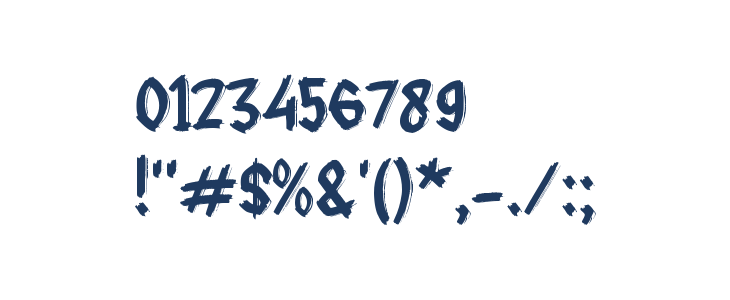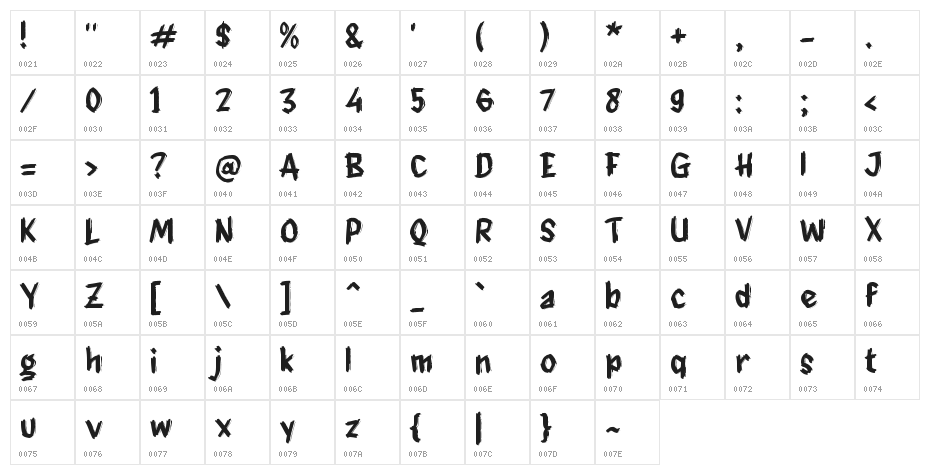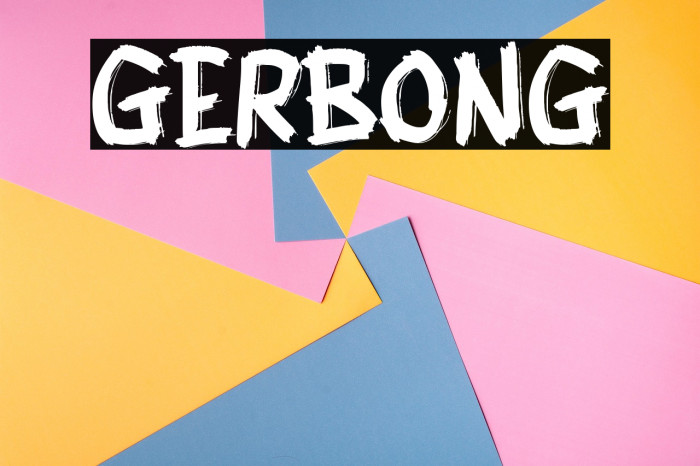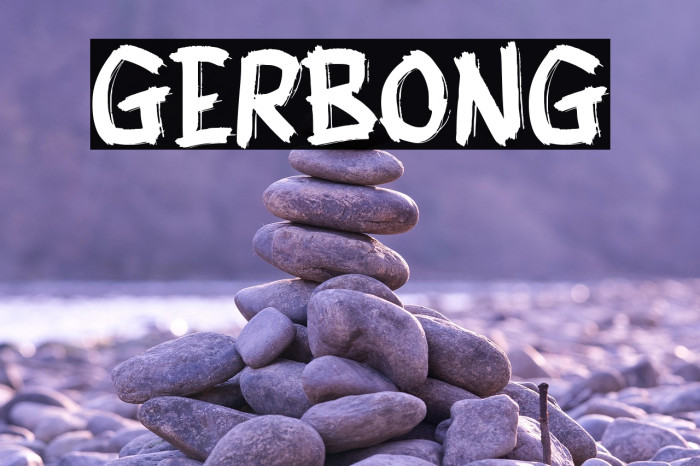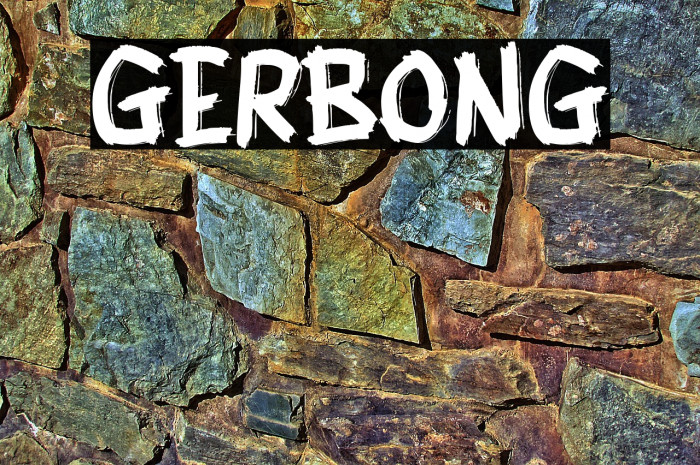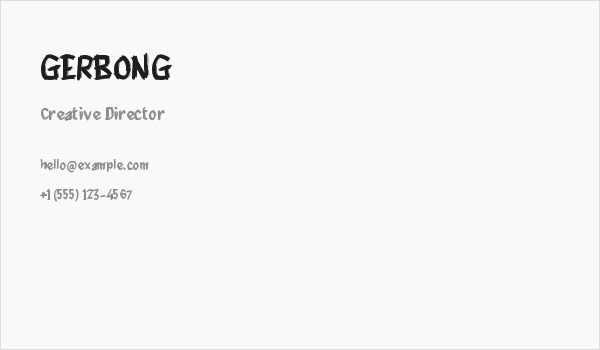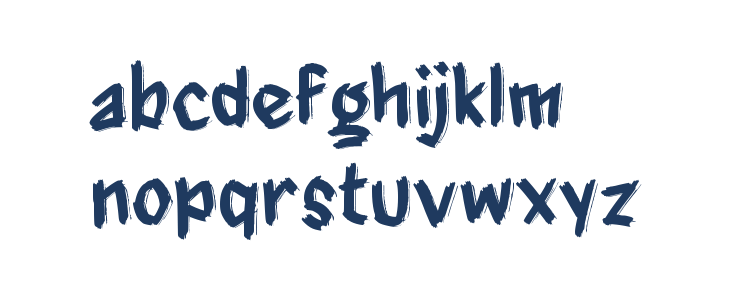
GERBONG Font
GERBONG Description
This font features a bold, brush-like style that gives it a dynamic and energetic appearance. The strokes are uneven, mimicking the texture of hand-painted letters, which adds a sense of movement and spontaneity. The uppercase and lowercase letters maintain a consistent style, with sharp angles and thick strokes that create a strong visual impact. Numbers and special characters follow the same aesthetic, ensuring uniformity across all glyphs. This font is ideal for projects that require a bold statement or a creative, artistic touch.
| Proposed Projects | Ideal for posters, branding, album covers, and any creative projects that require a bold, artistic touch. |